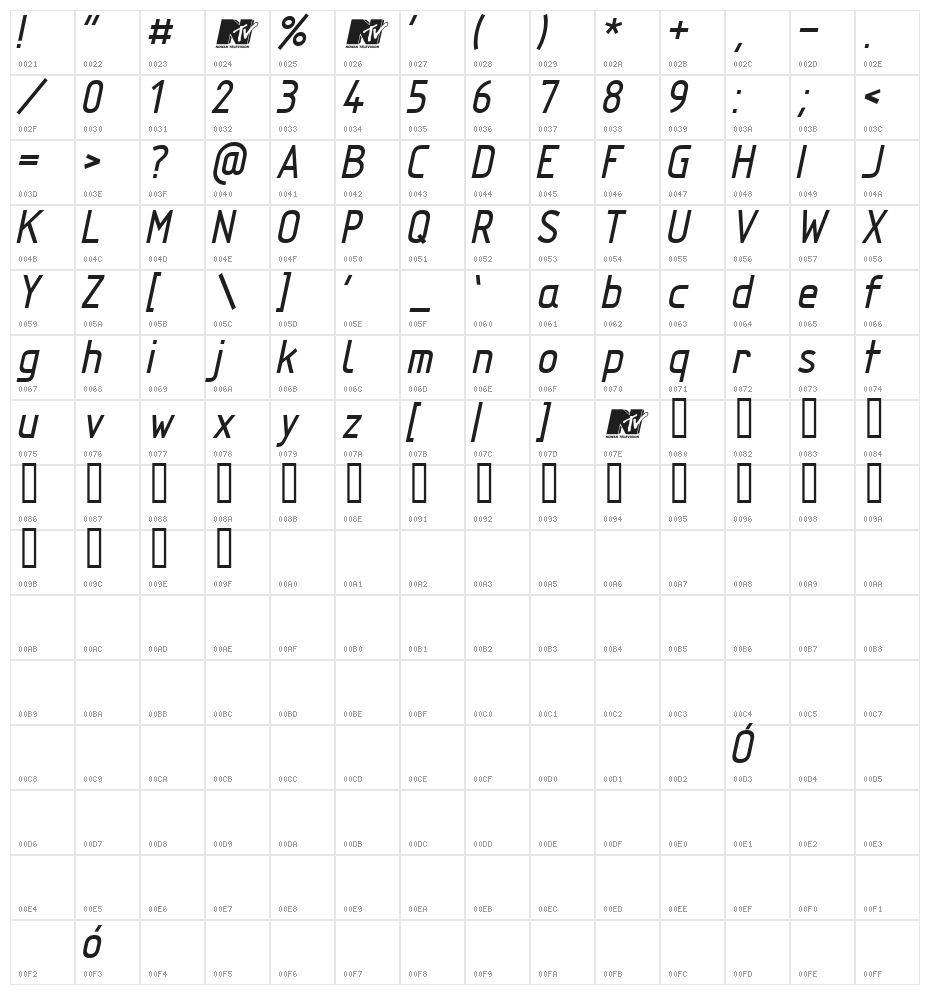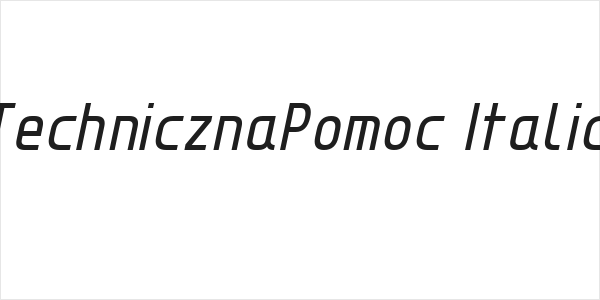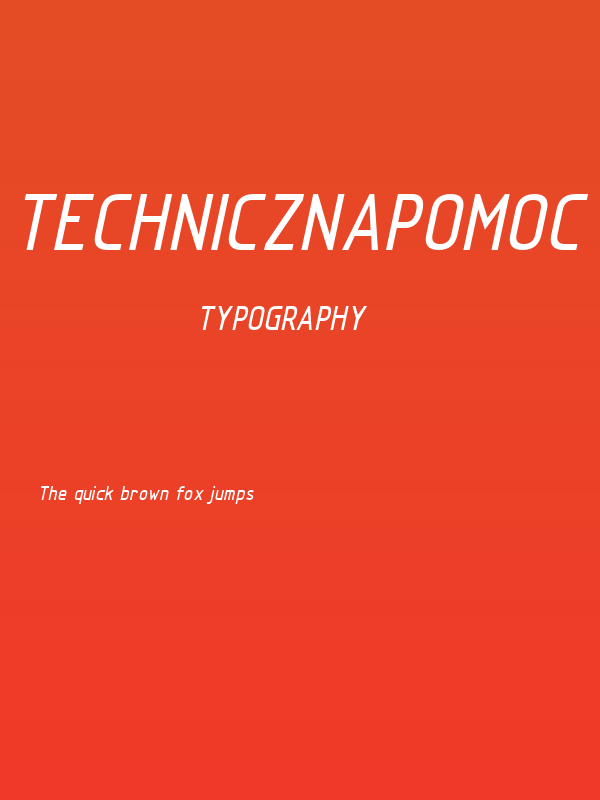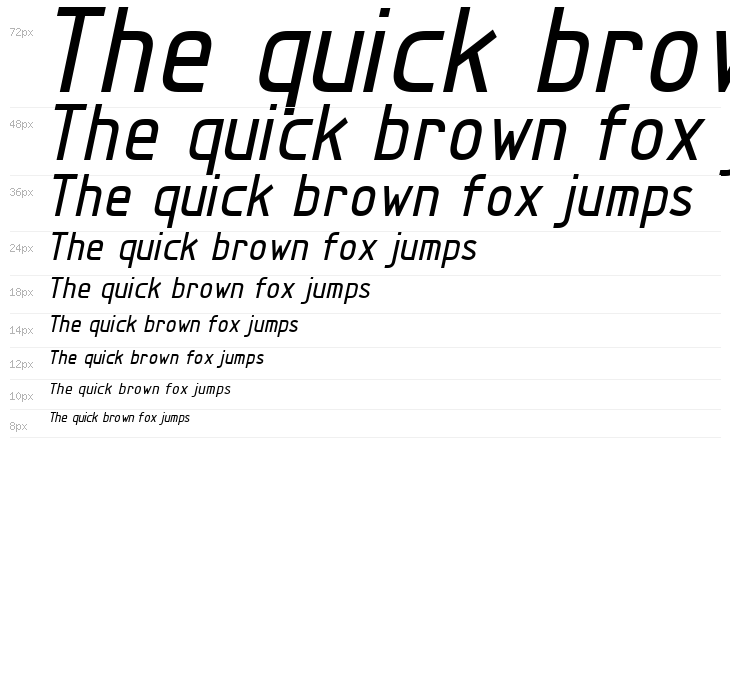
TechnicznaPomoc Italic Font
TechnicznaPomoc Italic Description
This font features a sleek, modern design with a distinct italic slant, giving it a dynamic and forward-moving appearance. The characters are slightly condensed, contributing to a streamlined look. The strokes are consistent in width, providing a uniform and cohesive feel across all letters and numbers. The font maintains a clean and professional aesthetic, making it suitable for various applications. Its geometric shapes and sharp angles add a touch of sophistication, while the italic style introduces a sense of motion and energy. The special characters are well-integrated, maintaining the overall style and ensuring versatility in usage.
| Use Case | Headlines, Logos, Advertising |
| Proposed Projects | Ideal for branding, advertising, and editorial design projects where a modern and dynamic look is desired. |